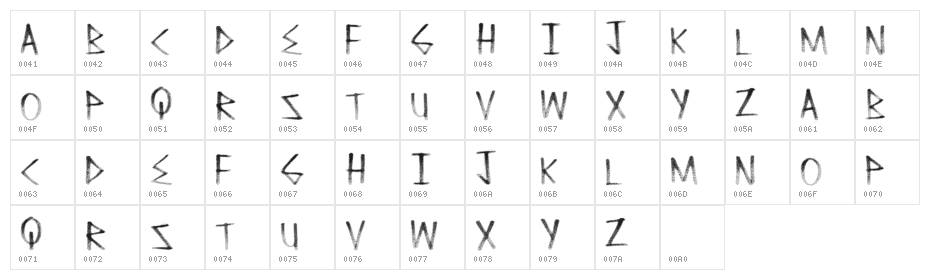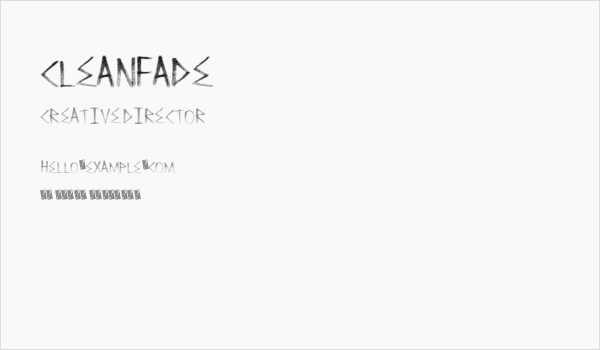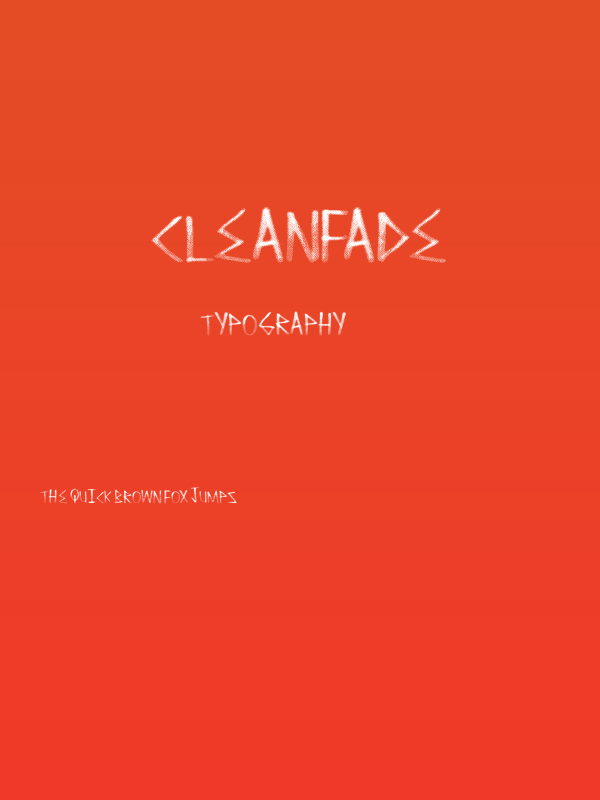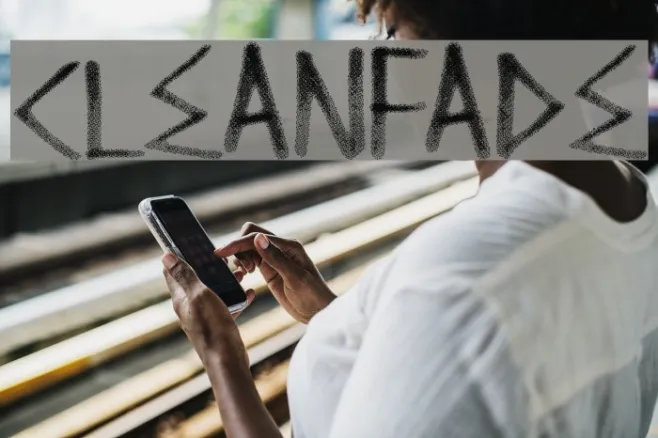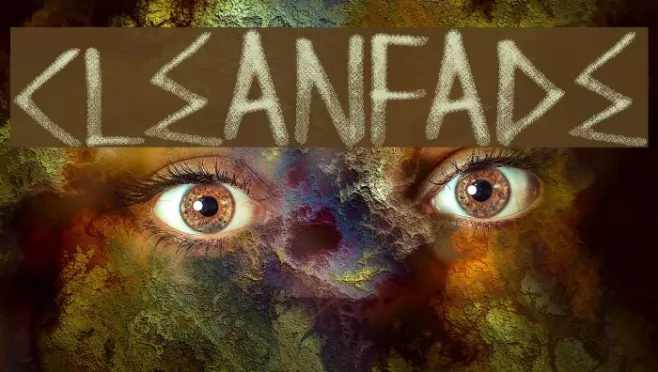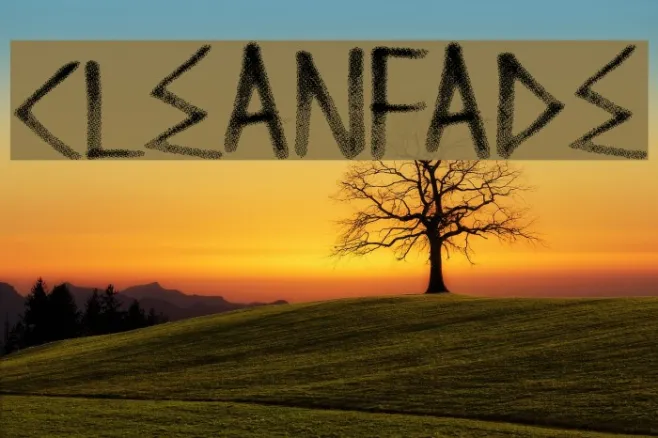
CleanFade Font
CleanFade Description
This font features a bold, hand-drawn style with a rough, textured appearance reminiscent of chalk or charcoal. The uppercase letters are angular and dynamic, with a sense of movement and energy. The lowercase letters maintain this energetic style, offering a consistent look throughout. The numerals and special characters follow the same aesthetic, ensuring a cohesive design. The font's unique style makes it stand out, ideal for projects that require a bold and artistic touch. Its rough texture adds a layer of depth and character, making it suitable for creative and unconventional designs.
| Overall Style | Artistic, Energetic, Textured |
| Use Case | Headlines, Logos, Artistic Designs |
| Proposed Projects | Ideal for posters, album covers, graffiti art, and creative branding projects. |